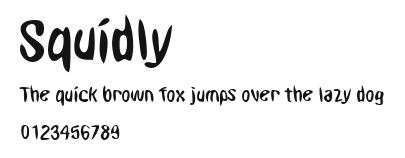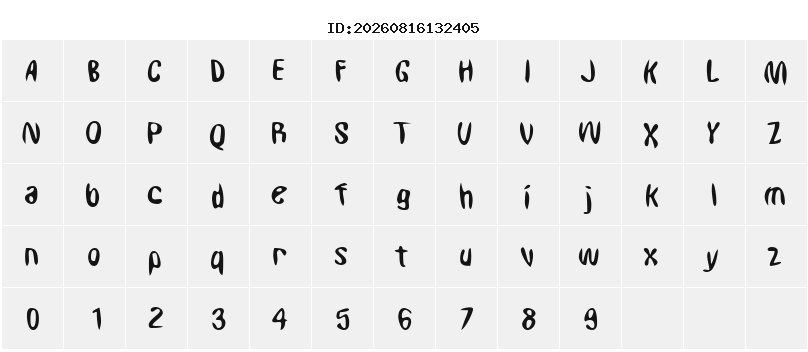
Squidly Preview
• Font Name: Squidly
• Full Font Name: Squidly-Bold
• PostScript Name: Squidly-Bold
About Squidly.ttf
Squidly.ttf is a modern, elegant sans-serif font designed for ultimate readability and visual harmony. Perfect for branding, headlines, web design, and print materials.